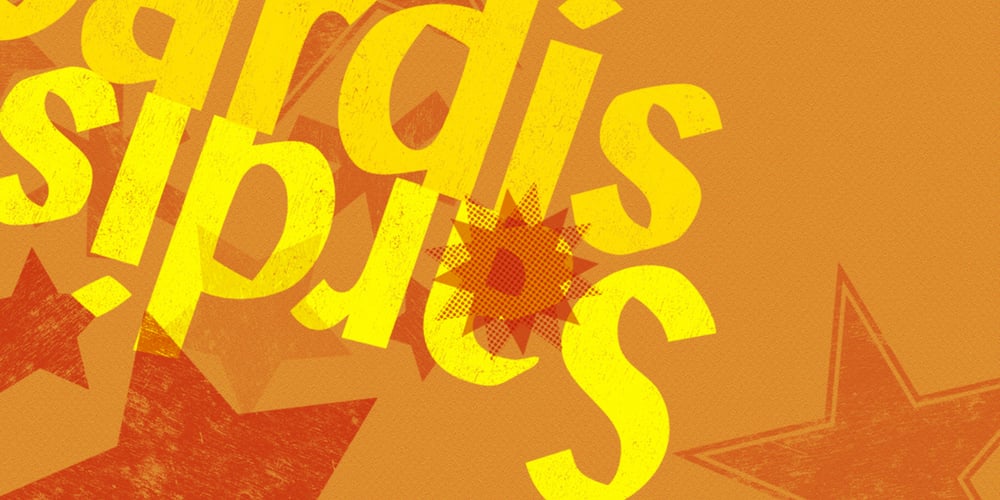
MPI Sardis Font Family was designed by Warren Chappell and published by mpressInteractive. MPI Sardis contains 1 styles and family package options. Sardis is based on a family of wood type called “Lydian,” designed for American Type Founders Company by Warren Chappell in 1938. The strokes have angled ends, referencing the use of a calligraphy nib.